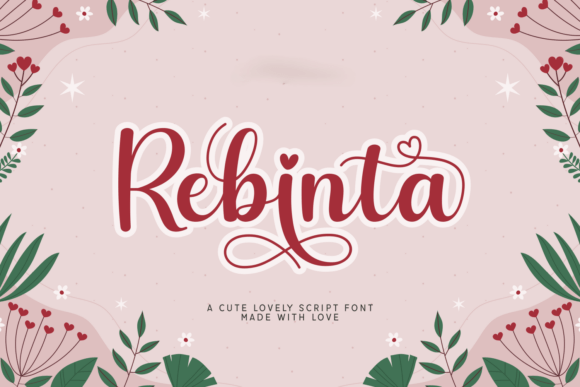
Bringing Love to Life with Rebinta: A Script Font for Modern Romance
There is a specific kind of magic that happens when you find the perfect typeface. It transforms a simple message into an experience, turning a standard greeting into a heartfelt declaration. For designers and creatives who need to convey warmth, affection, or a touch of whimsical sophistication, Rebinta stands out as a standout choice. This isn't just another script font; it is a charming and romantic tool designed to infuse your projects with genuine love and sweetness.
When you look at Rebinta, you immediately notice its smooth, flowing curves. These aren't stiff, rigid lines but rather delicate swashes that mimic the natural movement of a calligraphy pen. The font features subtle heart-shaped details woven into the letterforms, adding a playful yet sophisticated elegance that feels both hand-drawn and modern. Whether you are crafting a wedding invitation suite or designing a social media campaign for a boutique brand, Rebinta strikes a perfect balance between lovely hand-drawn script and polished styling. Its layered effect and bold strokes ensure that while it is eye-catching, it remains highly readable even at smaller sizes.
Where Rebinta Shines in Real-World Design
The true value of a font lies not in its technical specifications, but in how it solves problems and enhances communication. Rebinta excels in scenarios where emotion is the primary driver of the design. Let's explore how different professionals and creators are utilizing this versatile typeface to elevate their work.
Celebrating Milestones: Weddings and Events
Wedding invitations are perhaps the most obvious home for Rebinta, but its application goes far beyond the front cover. Because the font balances playfulness with sophistication, it works beautifully for entire event suites. Imagine using Rebinta for the main invitation text, then pairing it with a simpler sans-serif for the logistical details like dates and addresses. The result is an elegant hierarchy that guides the guest's eye without overwhelming them.
Elevating Brand Identity for Lifestyle Businesses
In the crowded marketplace of lifestyle brands, standing out requires a unique voice. Rebinta is ideal for businesses that sell products rooted in care, creativity, or personal connection. Think of handmade jewelry makers, artisanal candle shops, floral studios, or boutique bakeries. Using Rebinta in a logo or on packaging instantly communicates that the product was made with love and attention to detail.
Consider a small business owner launching a line of personalized gift boxes. By using Rebinta for the brand name and key messaging, they create an immediate emotional connection with the customer. The font suggests that every item inside the box is a thoughtful gesture. Furthermore, the font's modern polish prevents the brand from looking outdated or overly kitschy, keeping it relevant for an adult audience aged 20 to 50.
Digital Engagement and Social Media
Social media feeds are visual battlegrounds. To stop the scroll, your graphics need personality. Rebinta is exceptionally effective for Instagram stories, Pinterest pins, and Facebook posts where text overlays are necessary. The layered effect mentioned in its design allows the text to pop against busy backgrounds without losing clarity.
Content creators can use Rebinta to highlight quotes, announce promotions, or tag featured customers. The playful nature of the font encourages engagement, making followers feel like they are part of an intimate community rather than just an audience. For example, a fitness influencer might use Rebinta for motivational quotes about self-love, while a travel blogger could use it for captions about romantic getaways.
Navigating Usage: Strengths and Considerations
While Rebinta is a powerful tool, like any creative asset, it has specific strengths and limitations that users should understand before diving in. Knowing these nuances helps prevent common design pitfalls and ensures the font is used effectively.
Why Users Choose Rebinta
The primary strength of Rebinta is its versatility in tone. Many script fonts lean too heavily into one direction—they are either too formal and stiff, or too messy and illegible. Rebinta avoids this trap by offering a middle ground. The bold strokes provide weight and presence, making it suitable for headlines and large display text. Meanwhile, the delicate swashes and heart details add the necessary softness for body copy or decorative elements.
Another significant advantage is its readability. In the world of script fonts, legibility is often sacrificed for style. Rebinta manages to keep the letterforms distinct and clear. This makes it practical for longer messages, such as the body text of a greeting card or the description on a product label, where other scripts might become difficult to decipher.